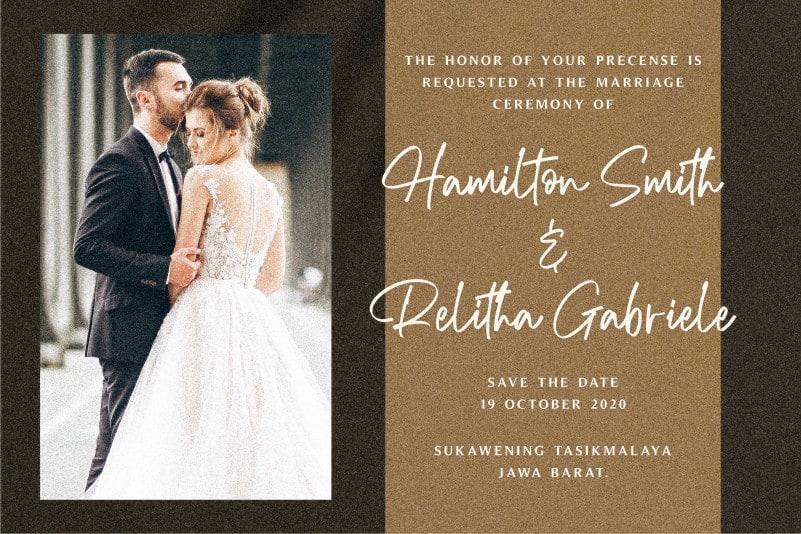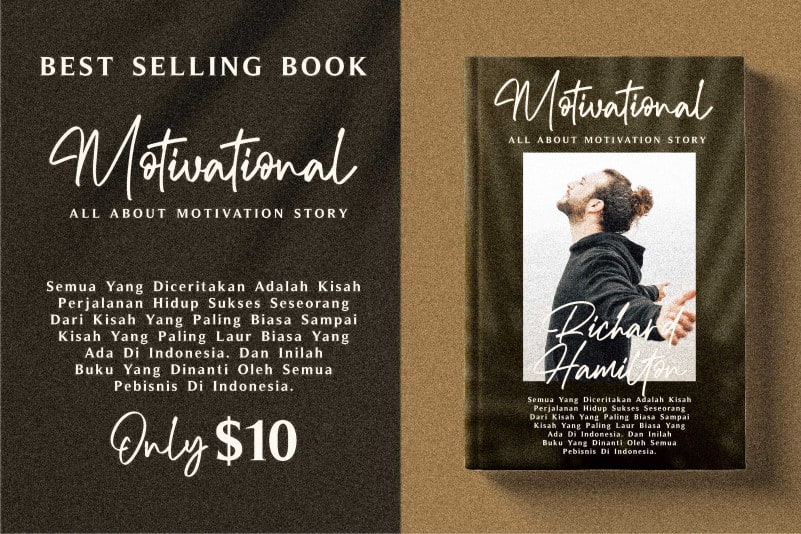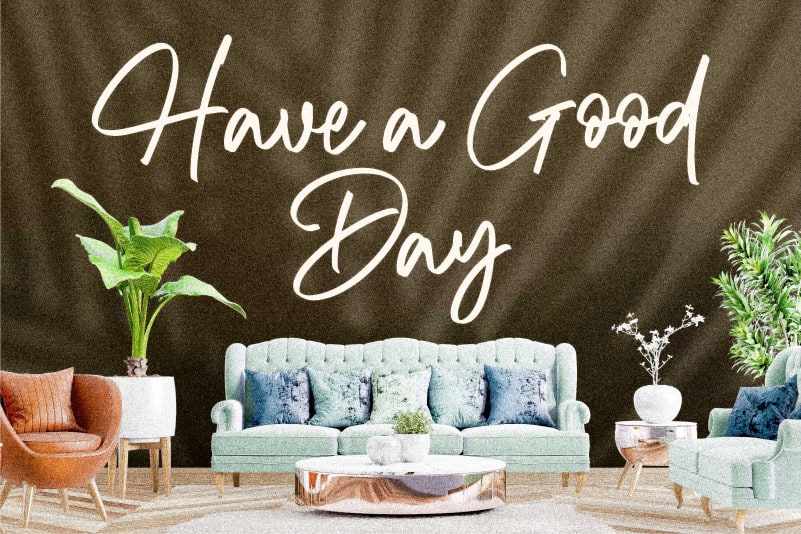
Richard Hamilton Handwritten Font
Richard Hamilton Handwritten Font is a modern handwritten font. This font is suitable for any projects such as: logos, branding projects, homeware designs, product packaging, mugs, quotes, posters, shopping bags, t-shirts, book covers, name card, invitation cards, greeting cards, label, photography, watermark, special events, and all your other luxury projects that need a brush Signature taste.